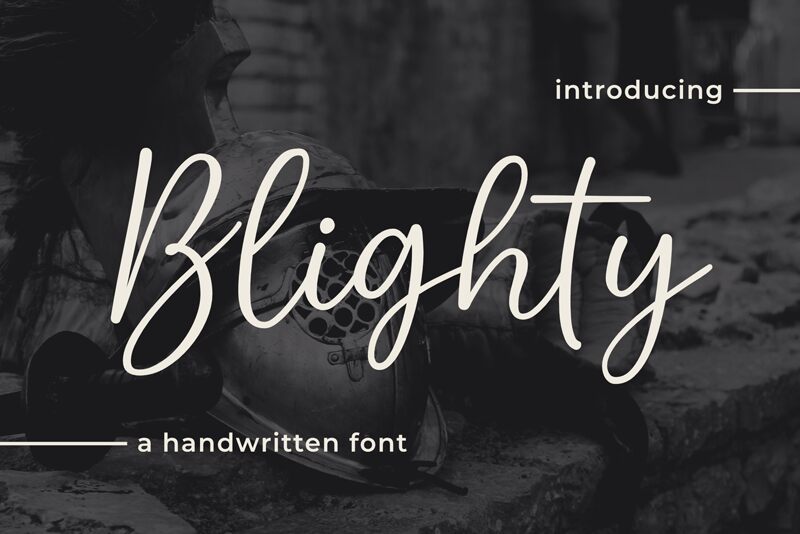
Blighty Regular
Blighty, the brainchild of Niskala Huruf, exudes a charm that can only be captured in the fluidity of handwritten artistry. With its semi-light weight, this font dances between casual elegance and playful warmth, making it a versatile choice for an array of creative endeavors.
Whether gracing the pages of a boutique's branding or adding a personal touch to wedding invitations, Blighty's distinct strokes and character forms are designed to leave an impression. Its suitability spans from editorial layouts to product packaging, where its unique handwritten style can add a bespoke feel to any project.
Embrace the allure of Blighty and let your designs tell stories with a human touch.